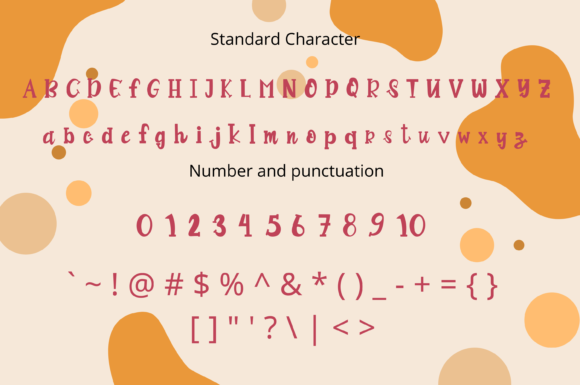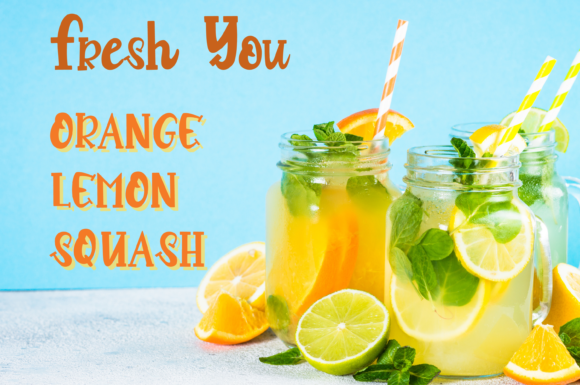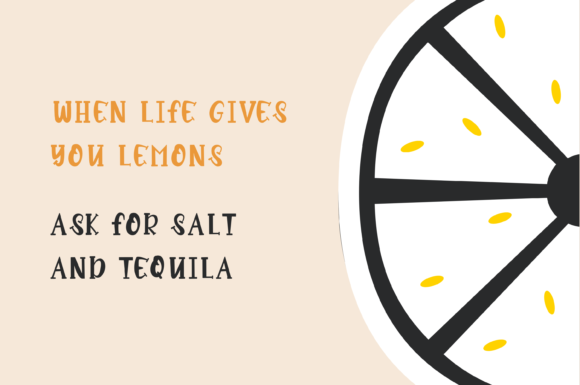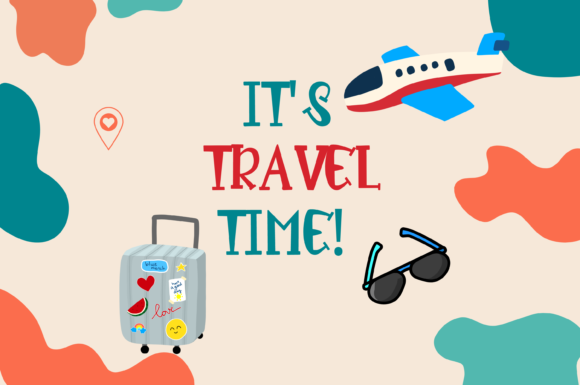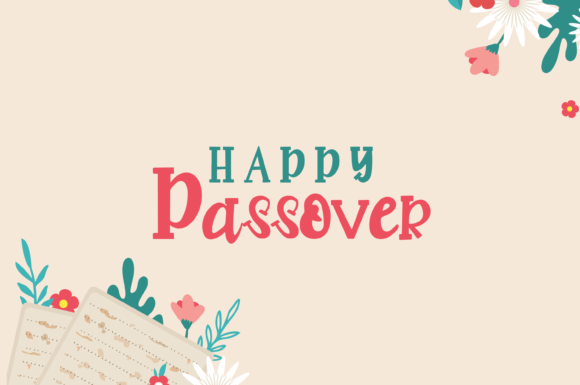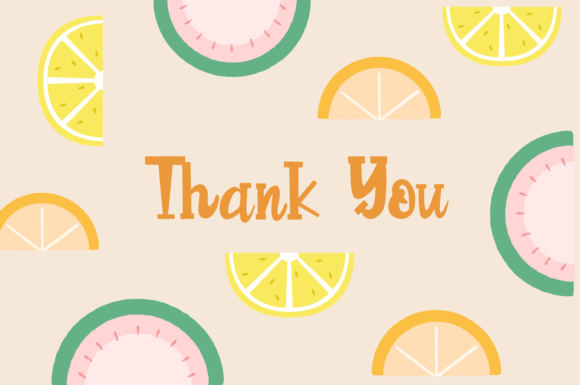
Introduction to Lemonade Organic Font Font
Fonts play a crucial role in design, and the Lemonade Organic Font font is a typeface that brings both character and versatility to any project. Whether you’re working on a branding project, a website, or a print design, the Lemonade Organic Font font offers a unique style that can elevate your work.
Lemonade Organic is a whimsical and chic display font.
It can easily be matched to an incredibly large set of projects, so add it to your creative ideas and notice how it makes them stand out .
Key Features of Lemonade Organic Font Font
Why Choose Lemonade Organic Font Font?
The Lemonade Organic Font font is more than just a typeface – it’s a design tool that helps you communicate your message with style and clarity. Its unique character set and versatile design make it suitable for a wide range of applications, from elegant invitations to bold headlines.
With its carefully crafted letterforms and balanced proportions, the Lemonade Organic Font font ensures readability and visual appeal across all mediums.
What makes Lemonade Organic Font font special?
The Lemonade Organic Font font stands out with its unique design, exceptional readability, and versatility across various design applications.